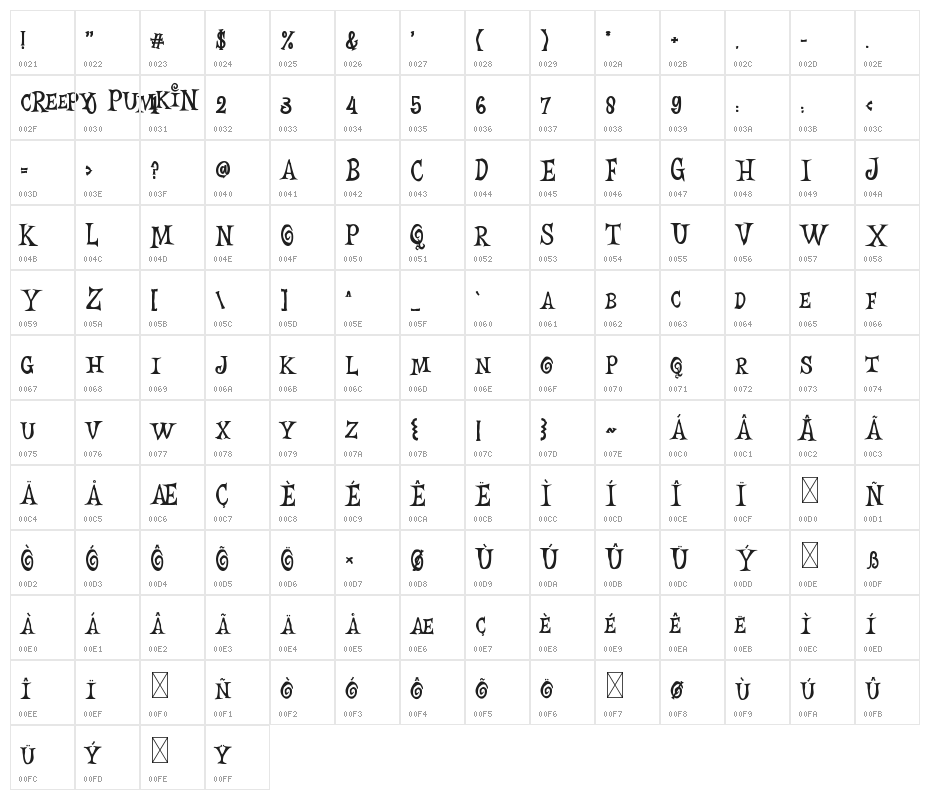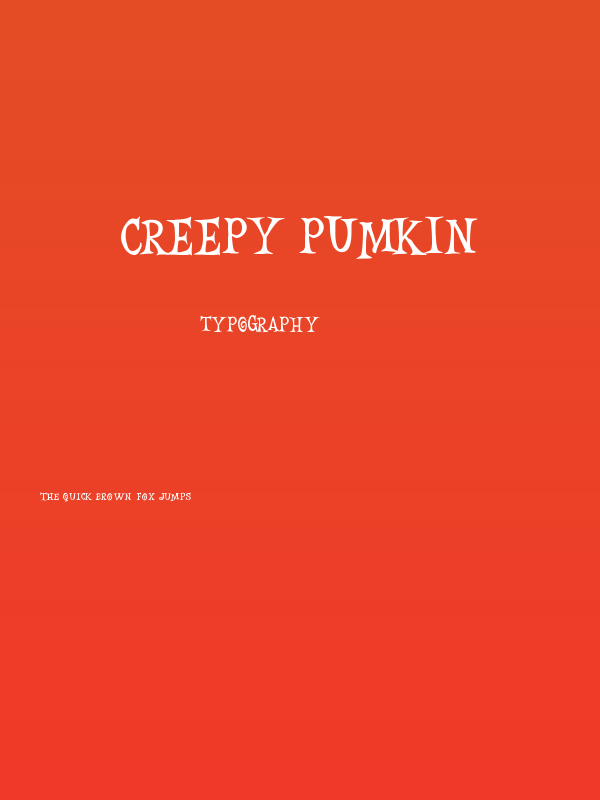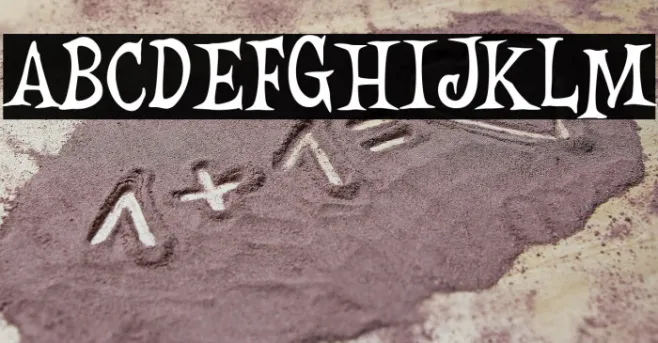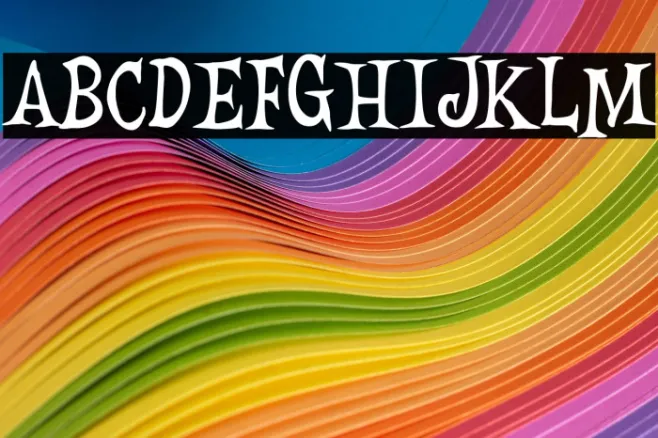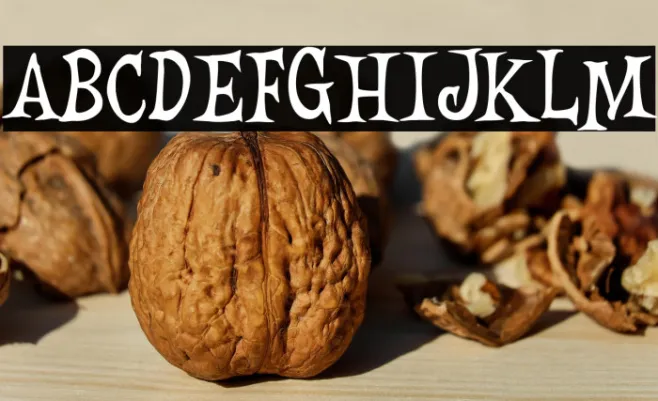
Creepy Pumkin Font
Creepy Pumkin Description
This font features a spooky and playful design, perfect for Halloween-themed projects. The letters have an irregular, jagged appearance, reminiscent of carved pumpkins or eerie shadows. The uppercase and lowercase characters maintain a consistent style, with unique embellishments such as spirals and curls on certain letters, adding to the whimsical yet creepy aesthetic. The numbers and special characters follow the same theme, ensuring a cohesive look across all text elements. The overall design is bold and eye-catching, making it ideal for decorative purposes.
| Proposed Projects | Ideal for Halloween invitations, themed posters, party decorations, and spooky branding. |